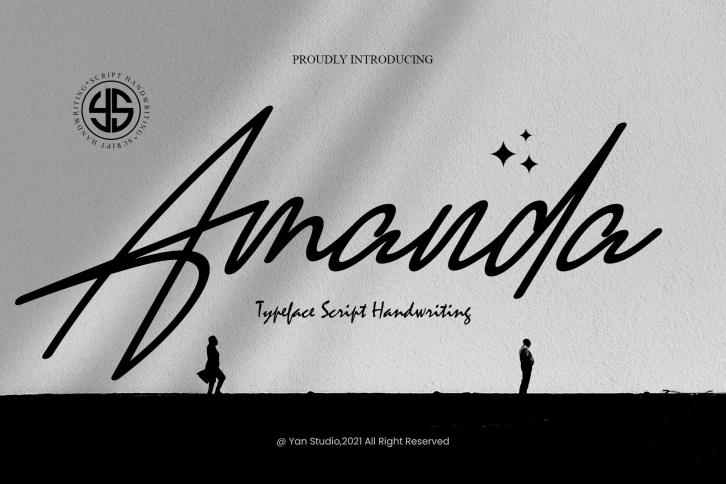
Amanda Script is a trendy and unique font with an authentic style. It was designed by Yan Studio and it's a great choice for creative people who need such a font. It was released on December 14, 2021 and the file size is 19.58 MB. Amanda Script will add an organic vibe to any design idea!